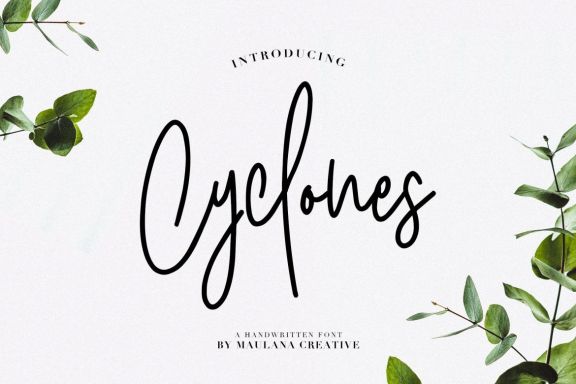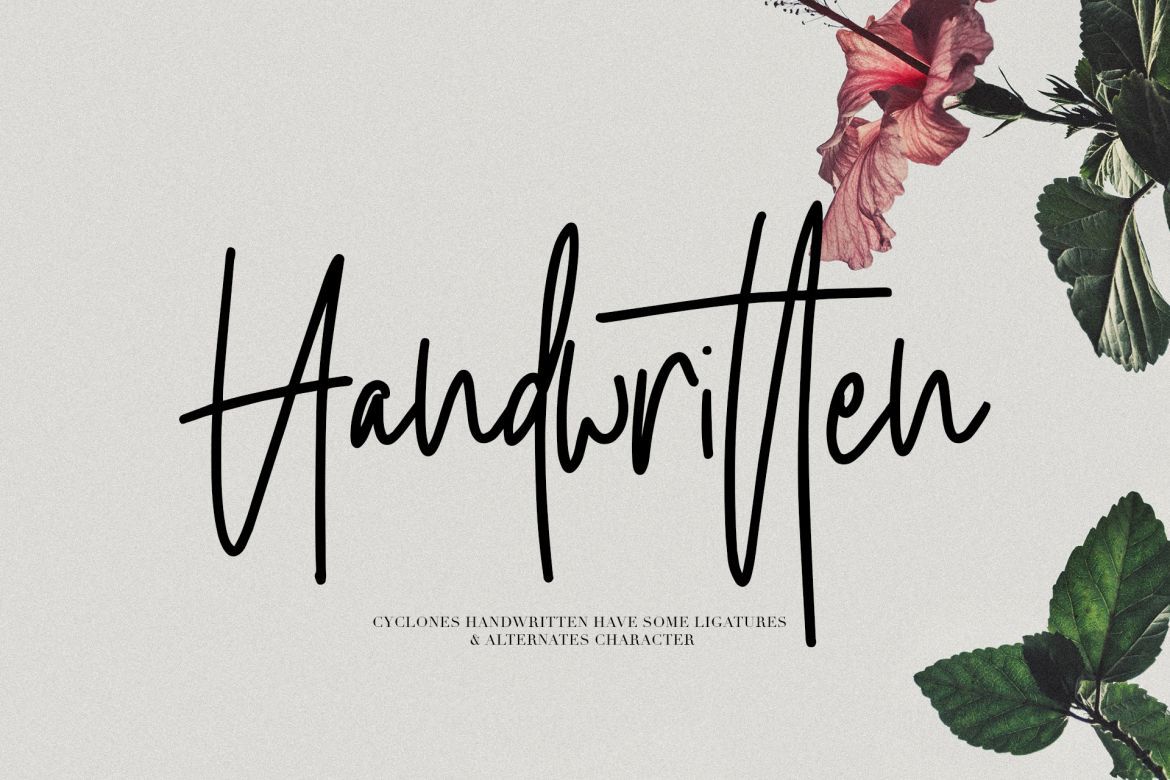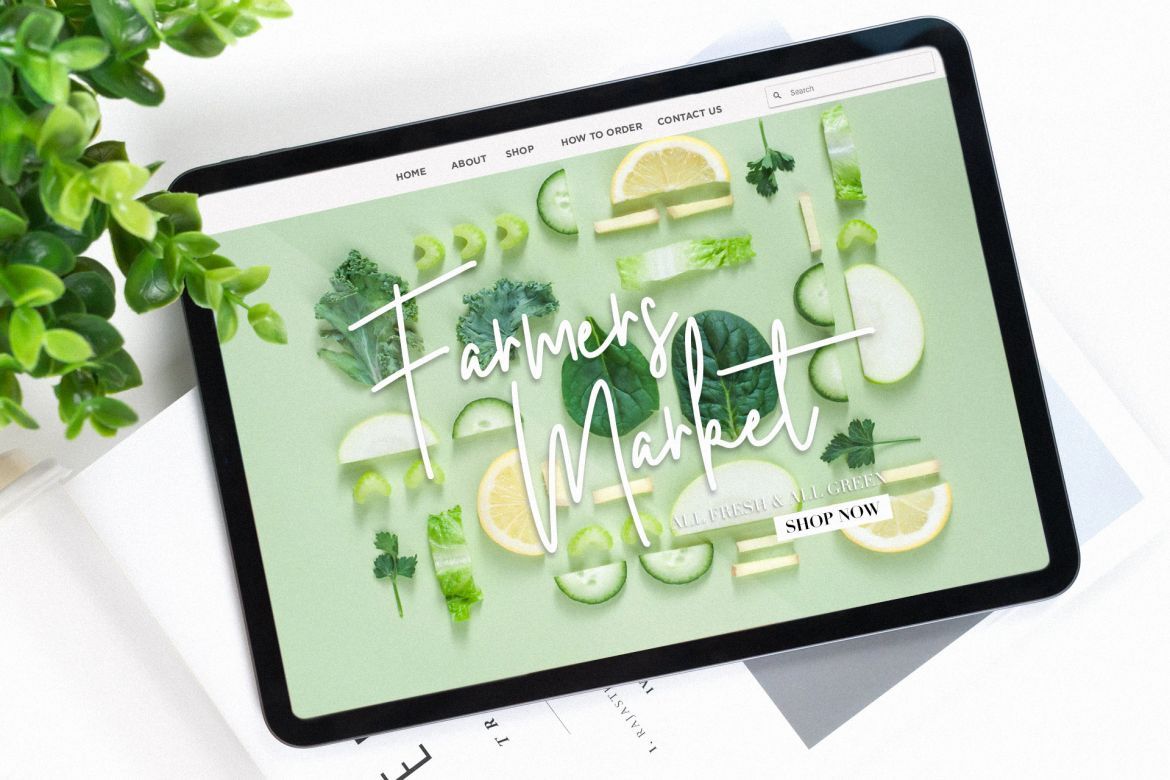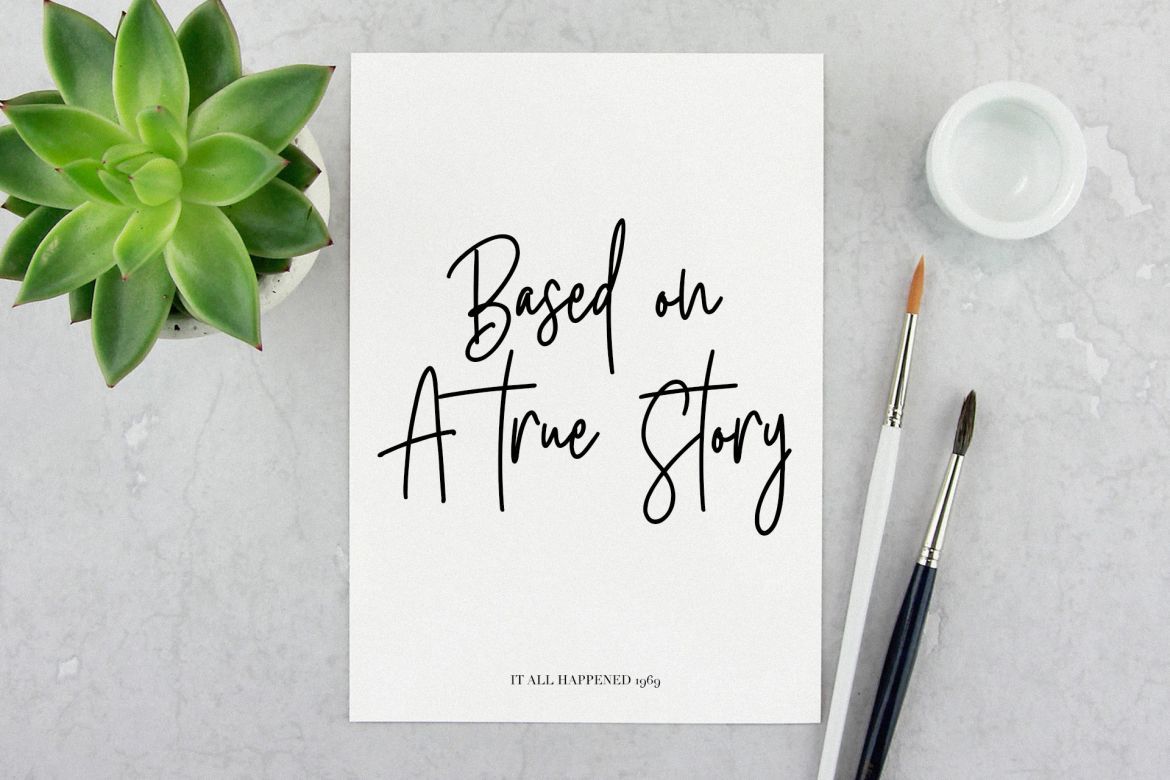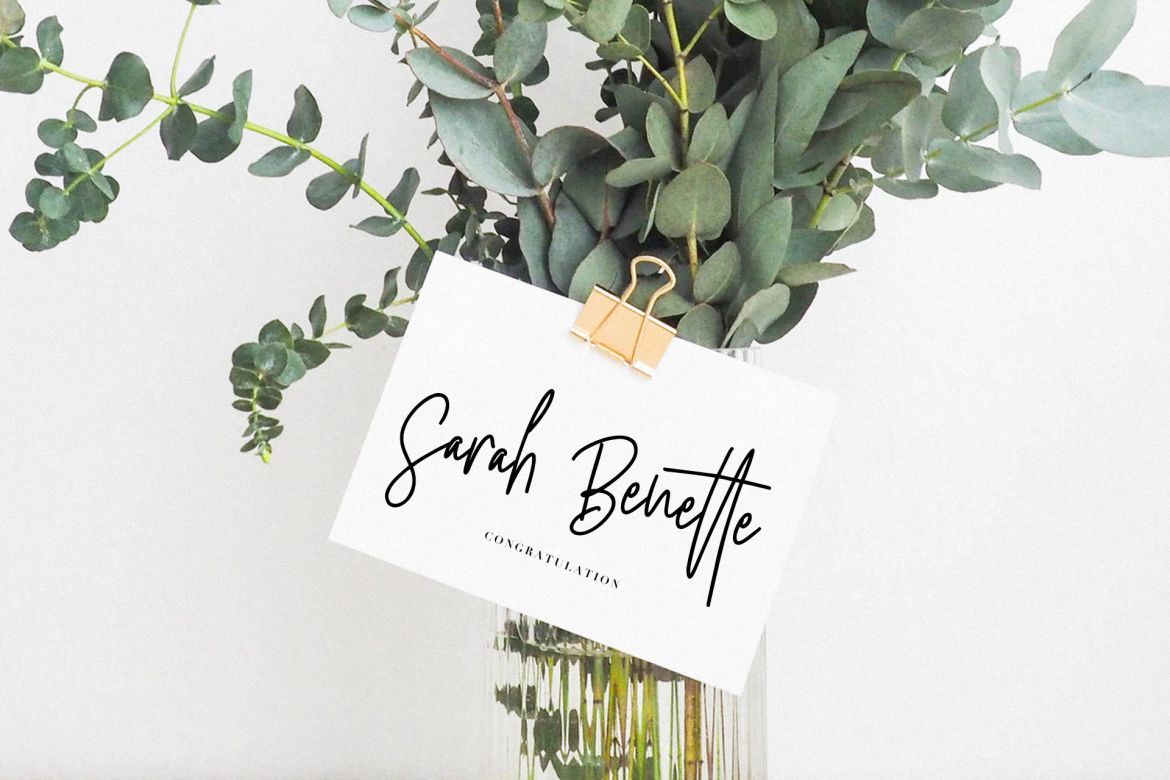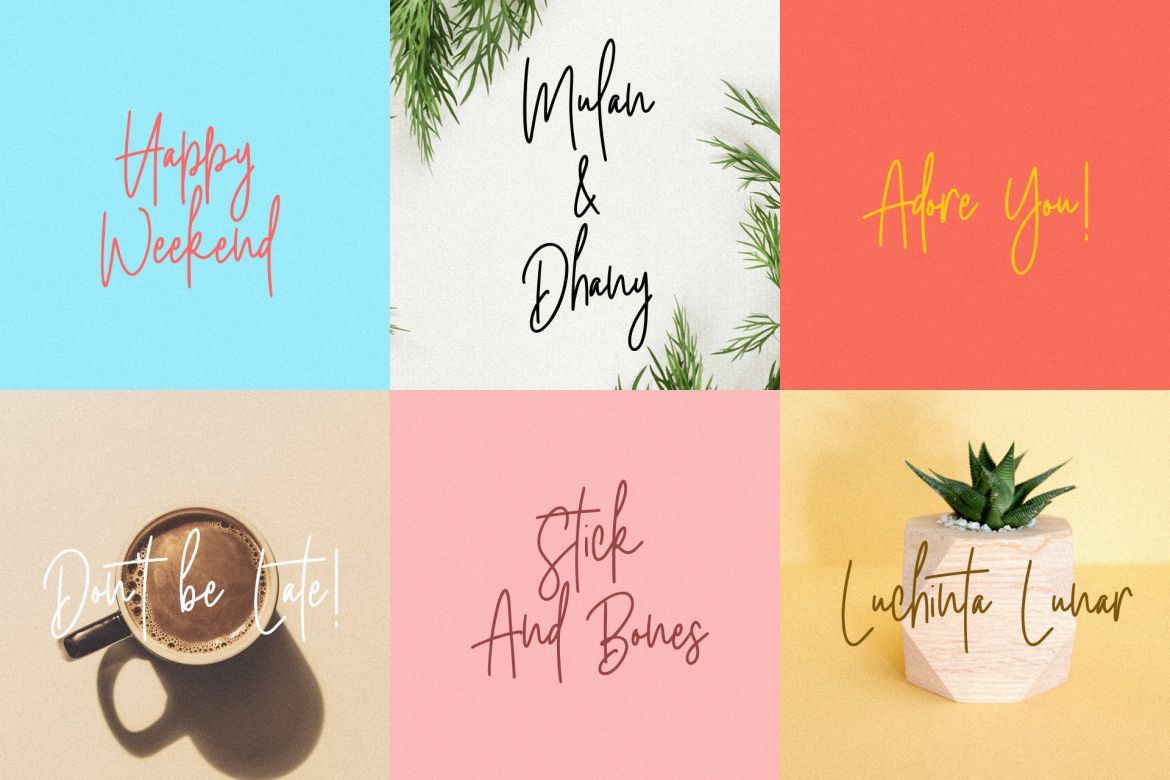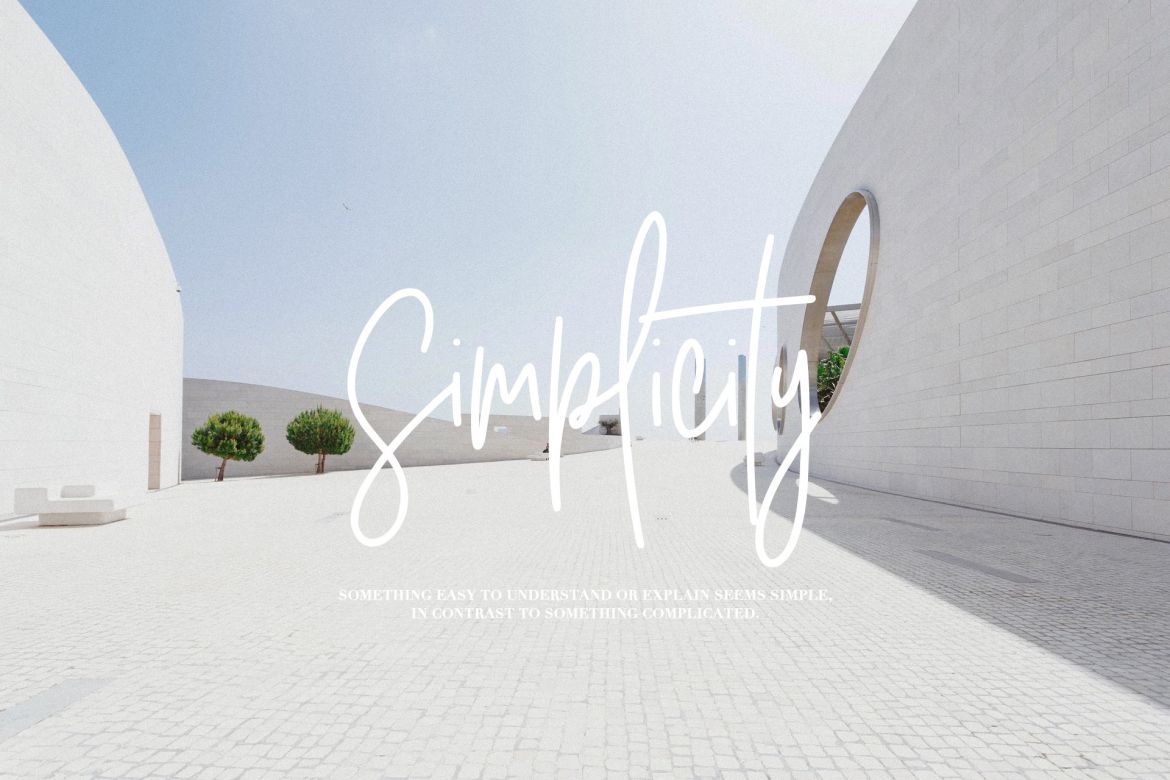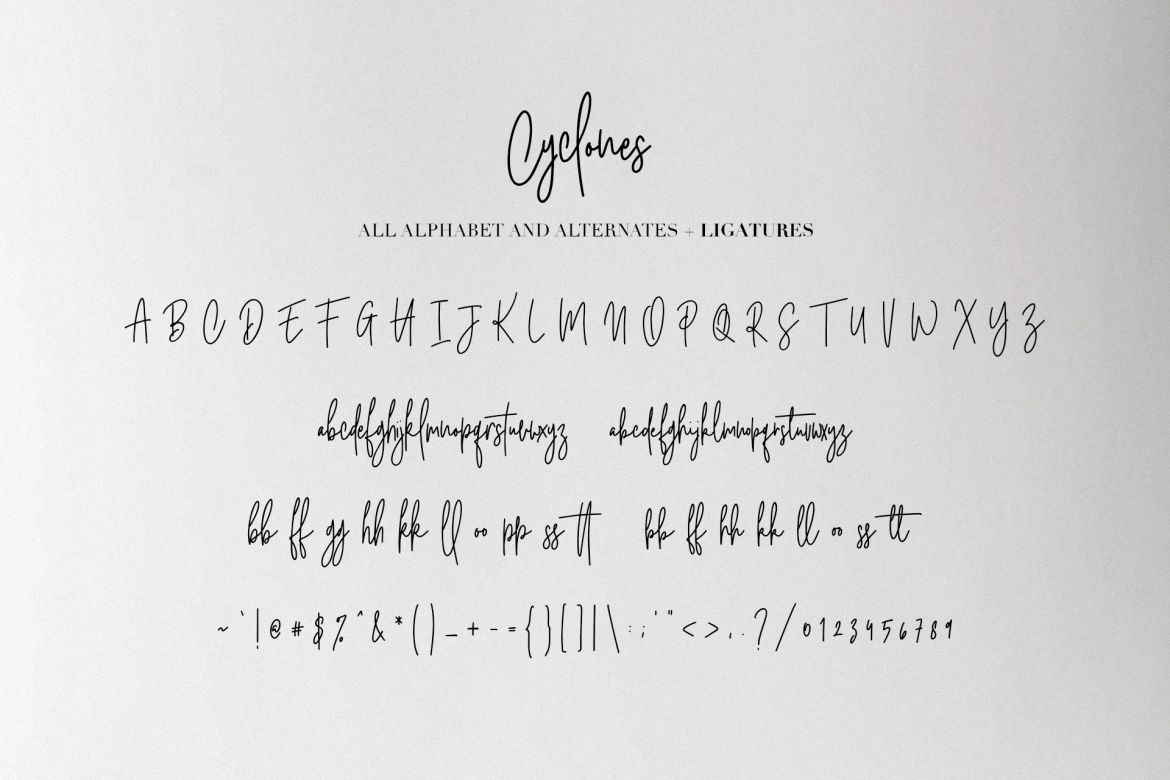
Cyclones Signature Brush Font
Give your designs an authentic handcrafted feel. "Cyclones" is perfectly suited to signature, stationery, logo, typography quotes, magazine or book cover, website header, clothing, branding, packaging design and more.
• Font Duo (Normal & Alternate)
• Included Font Alternates
• Included Ligatures